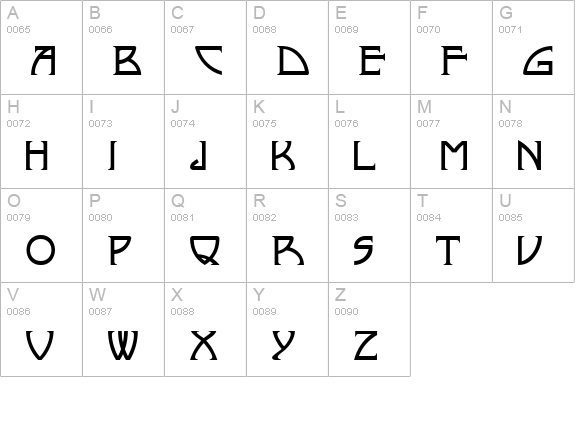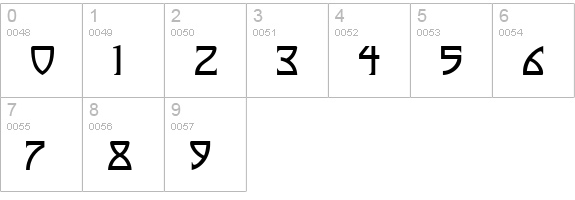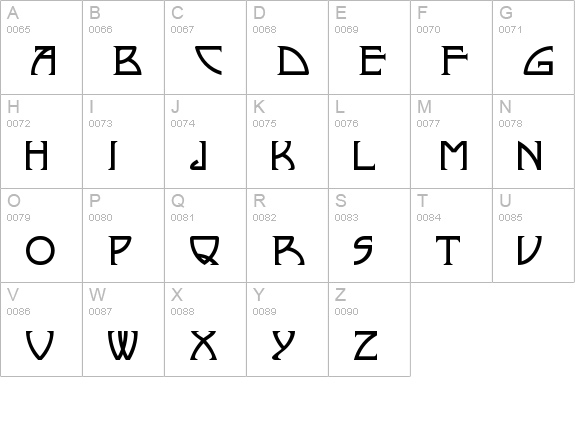
Nickley NF Font Details
Nickley NF is a modern and sophisticated font that exudes elegance and style. With its sleek lines and contemporary design, this typeface is perfect for a wide range of projects, from branding to marketing materials. The clean, legible characters make it a versatile choice for both digital and print applications. What sets Nickley NF apart is not only its aesthetic appeal but also the fact that it is available for free download at FontsMarket.com. This means that you can access this high-quality font without any cost, making it a valuable addition to your font library. Whether you're a designer looking to elevate your creations or a business in need of a fresh look, Nickley NF is sure to impress. Download it today and see for yourself the impact this font can make on your projects.